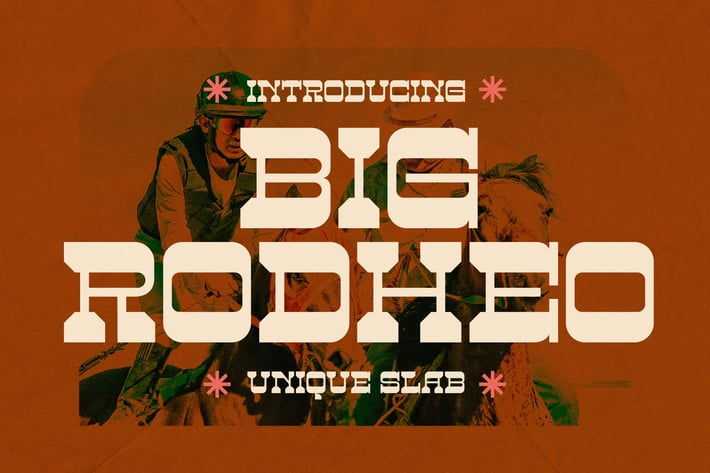
Big Rodheo Unique Slab Font
Big Rodheo is a bold and distinctive slab serif font that brings vintage western aesthetics into modern design. With its strong geometric forms and rugged personality, it’s ideal for projects that demand confidence, heritage, and style. Perfectly balanced between retro charm and contemporary appeal, Big Rodheo makes every word stand out with a timeless cowboy spirit.
Unique slab serif letterforms with strong visual weight
Bold geometry inspired by classic western typography
Excellent legibility for both headlines and display use
Vintage texture feel suitable for rustic or cinematic designs
Movie titles and vintage posters
Western-themed branding and packaging
Apparel and merchandise design
Social media graphics and bold headlines
* Signage, editorial, and promotional materials
Where strength meets style — Big Rodheo gives your words the spirit of the wild west.